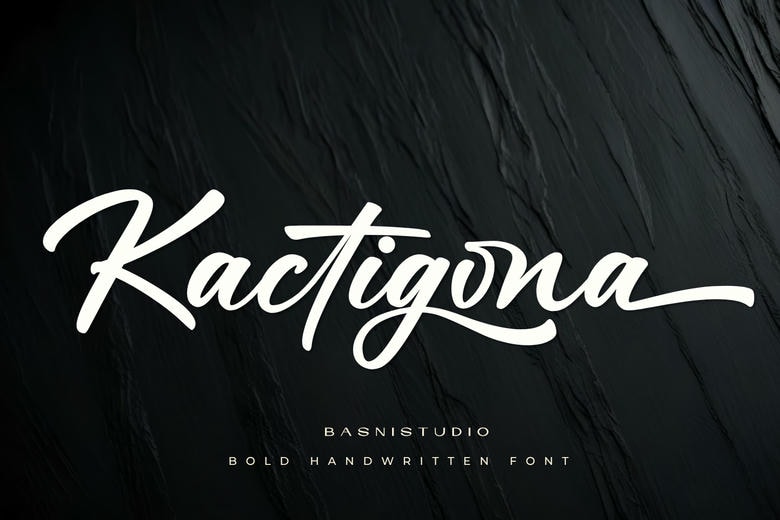
Kactigona Font
Kactigona is a bold handwritten font full of personality. Its look comes from the smooth, solid lines you get with a chisel-tip acrylic paint marker. The font features sweeping first strokes, tight letter connections, and a neat underline that curves under the lowercase letters.
The sharp edges of Kactigona make it pop on textured backgrounds, dark layouts, and solid black surfaces. It’s a great choice for streetwear brands, event posters, music covers, etc.
Kactigona Handwritten Script Font